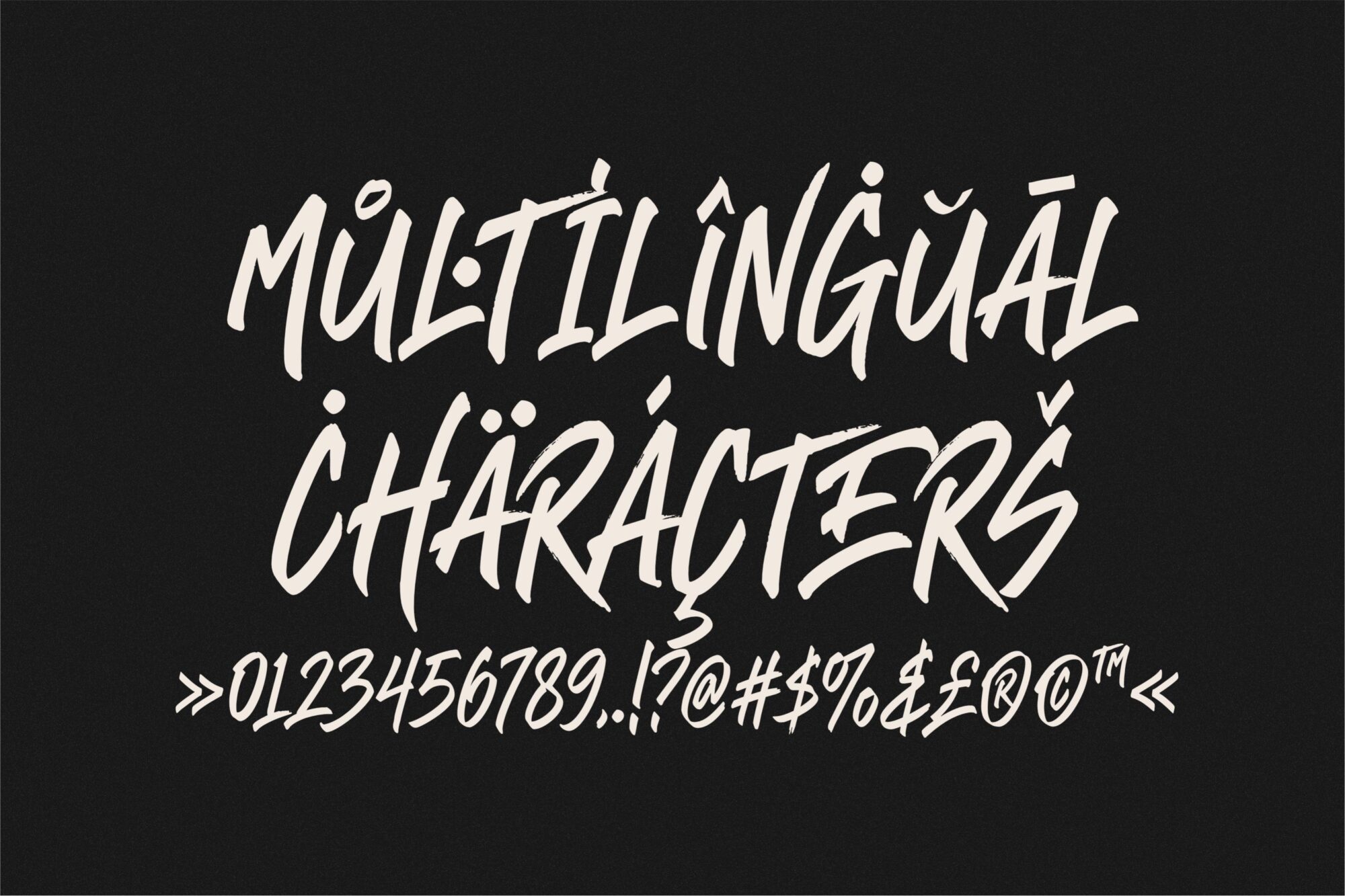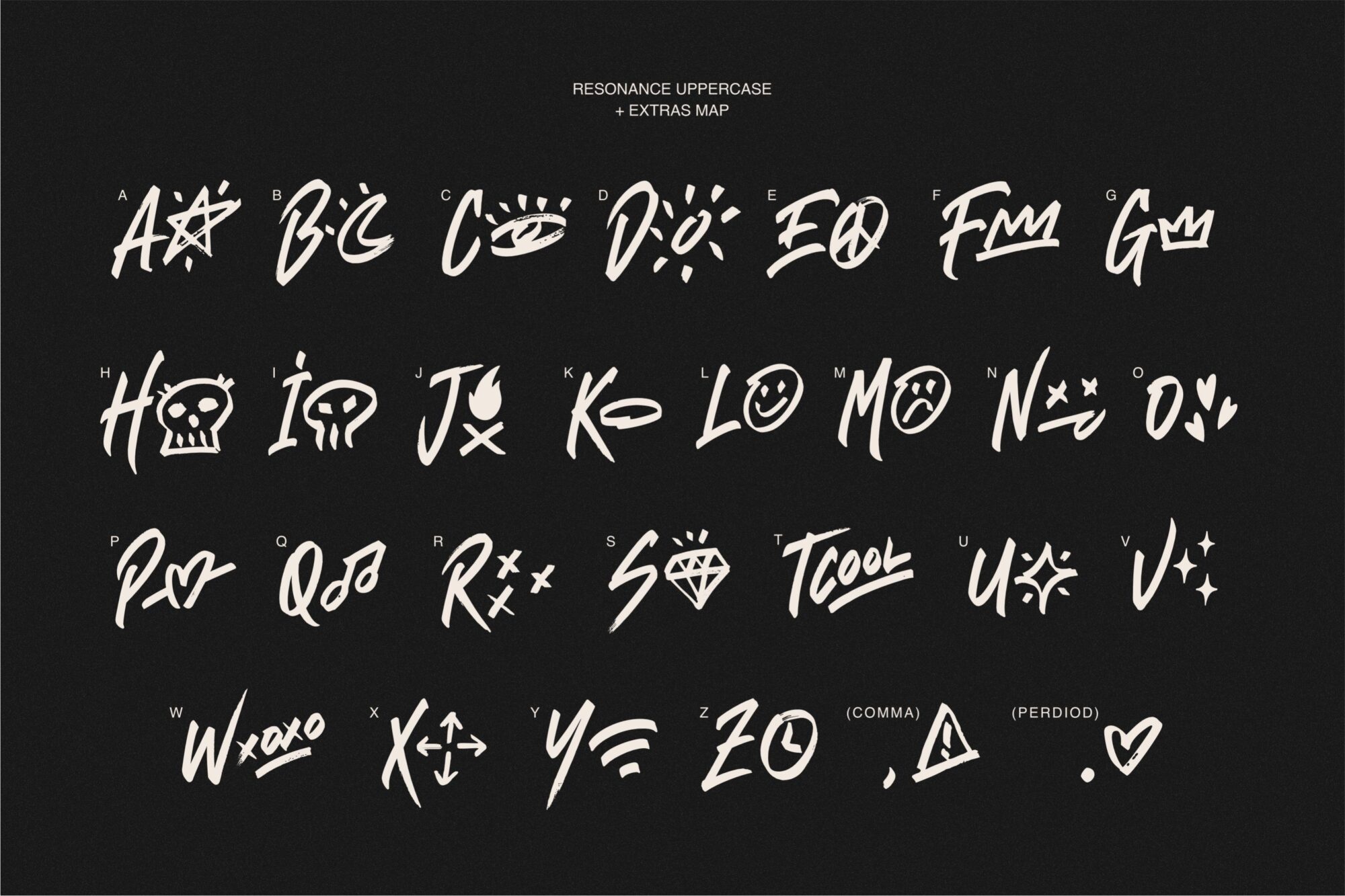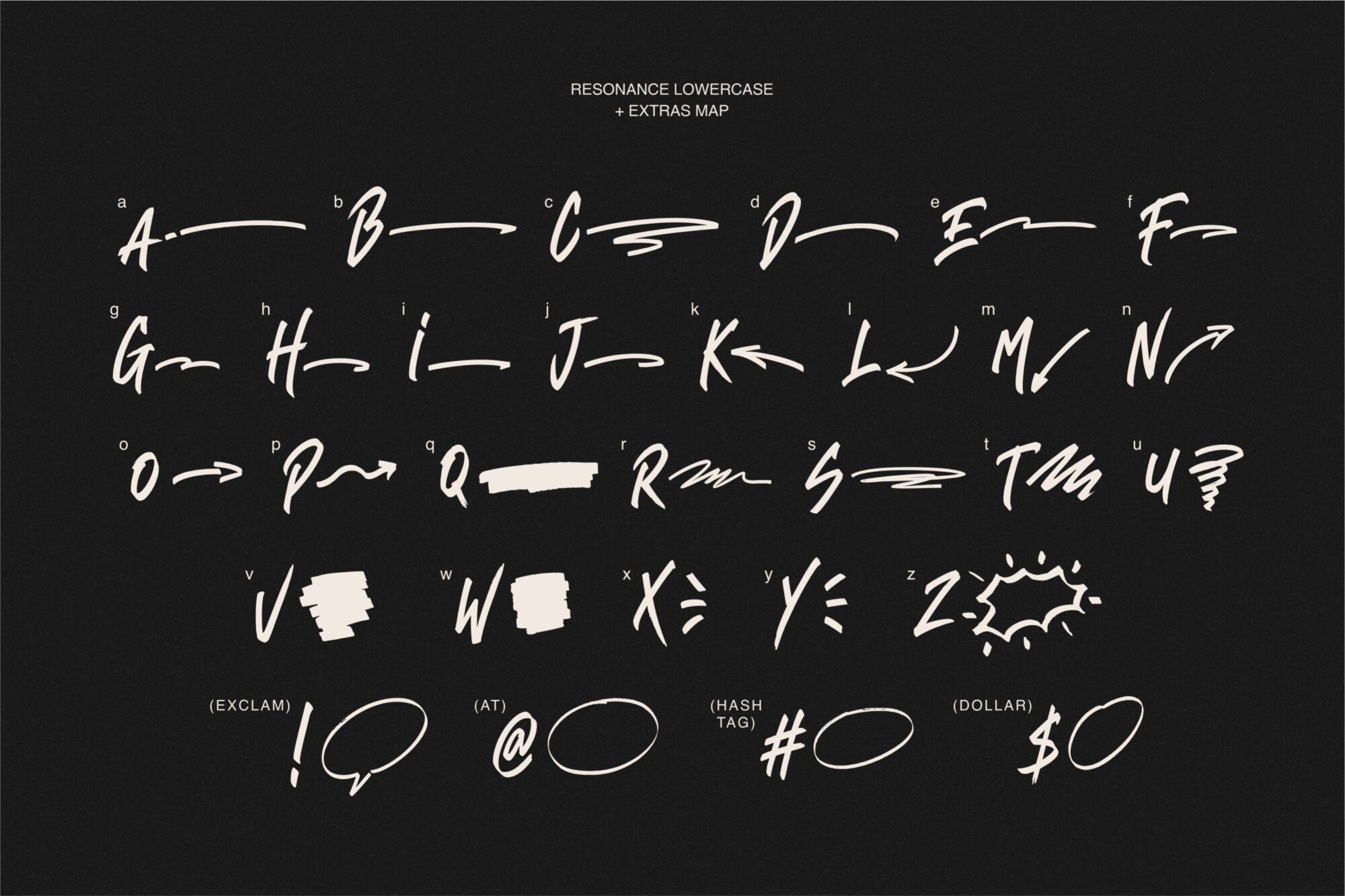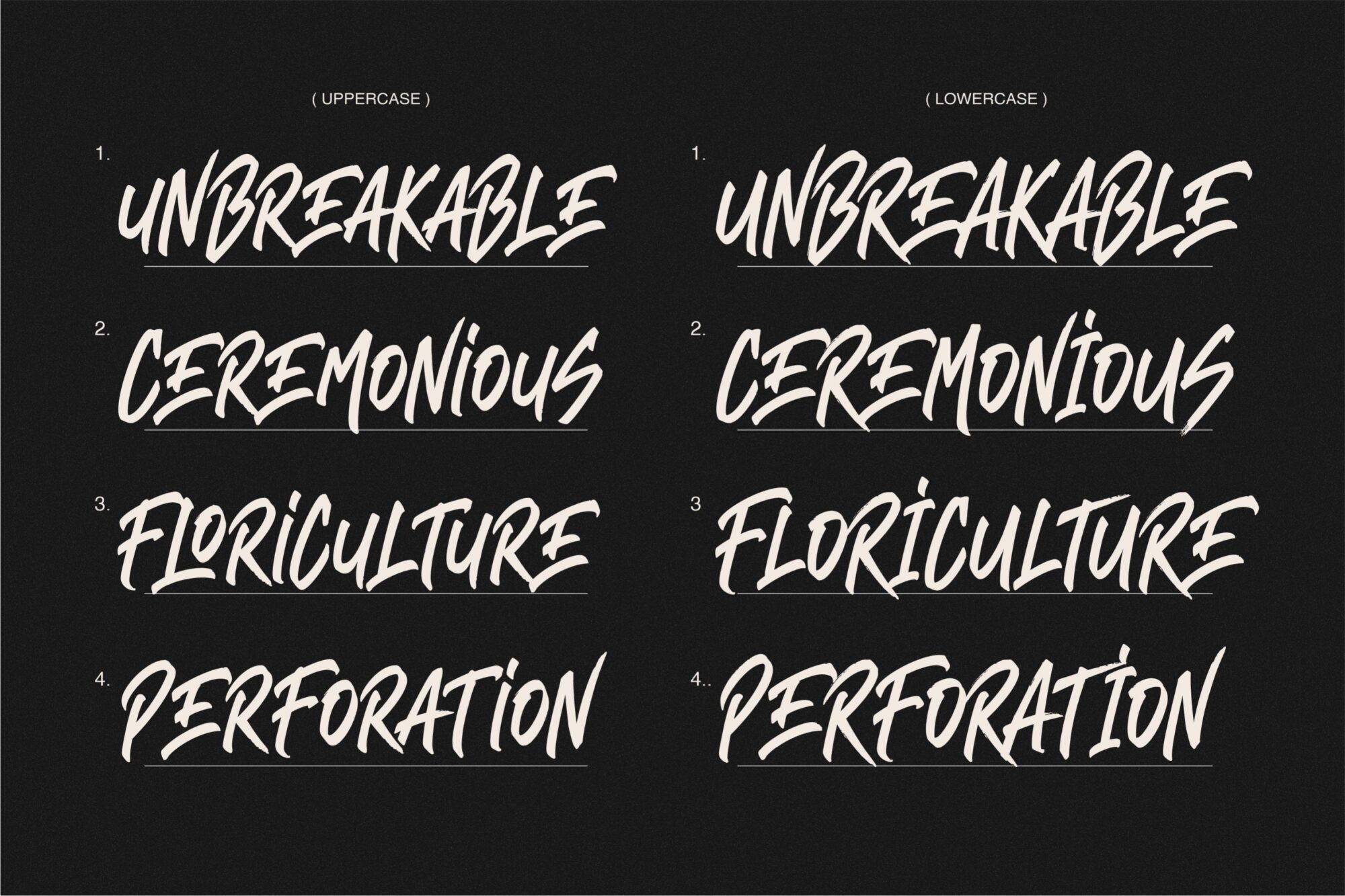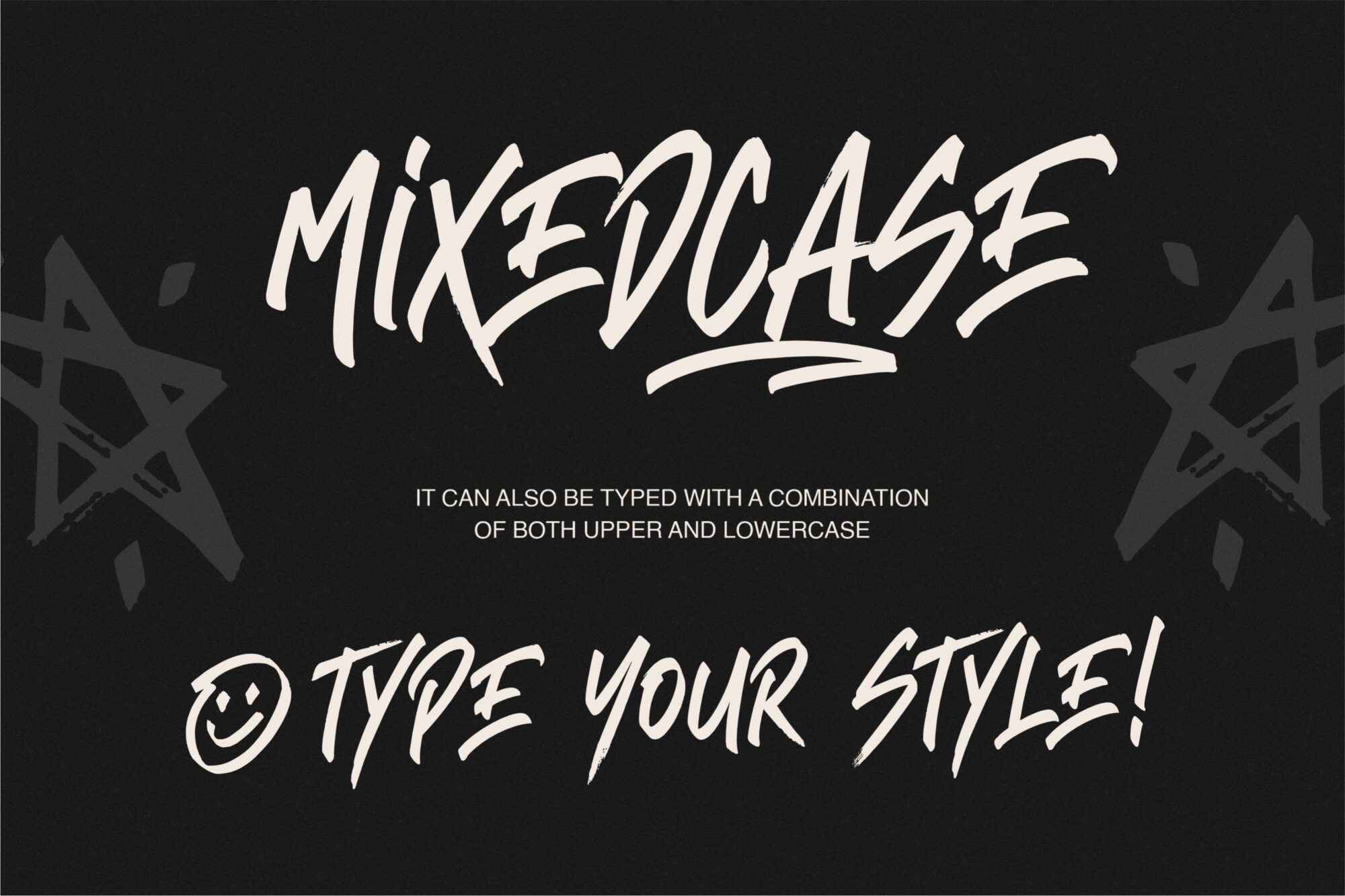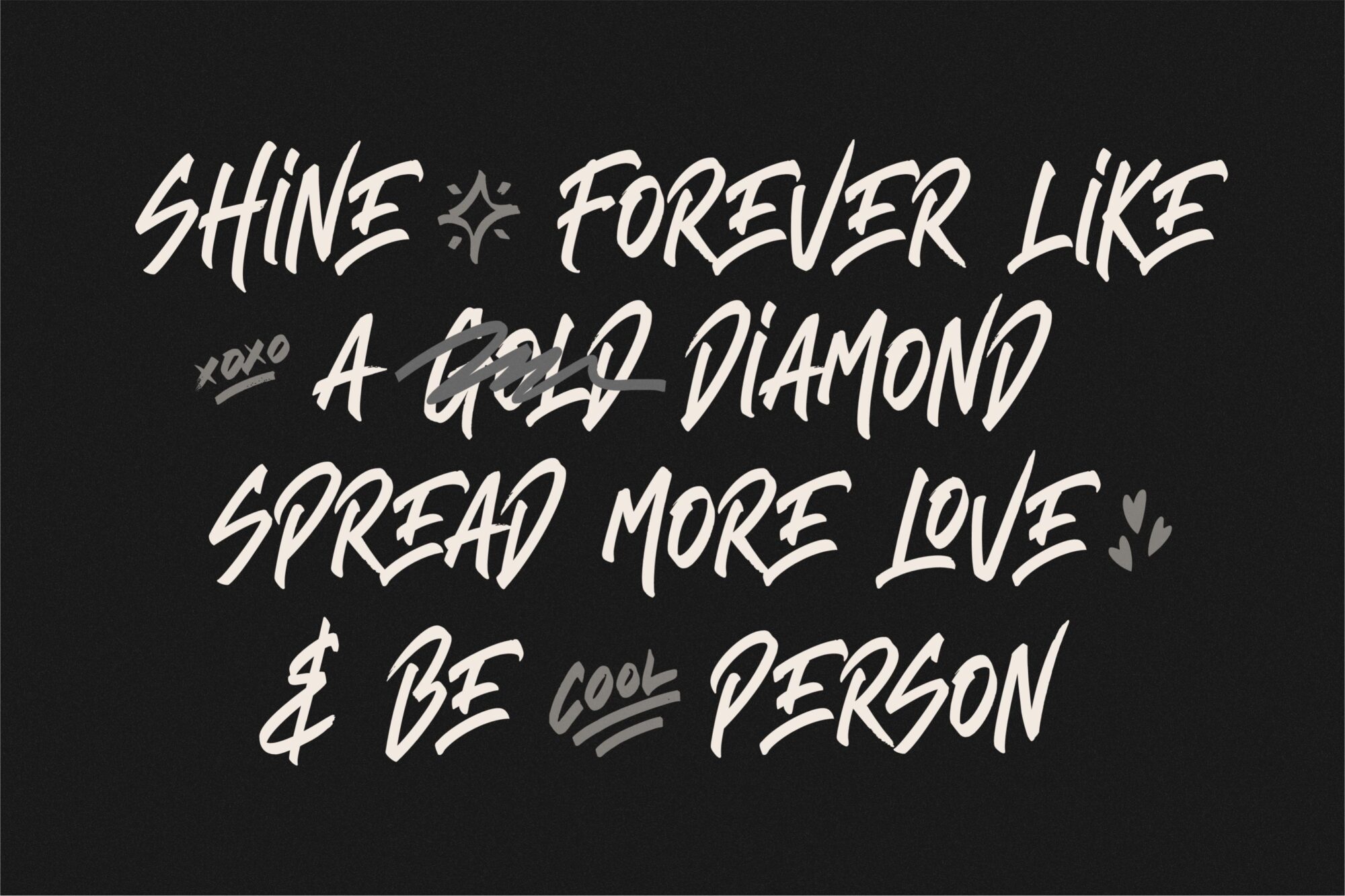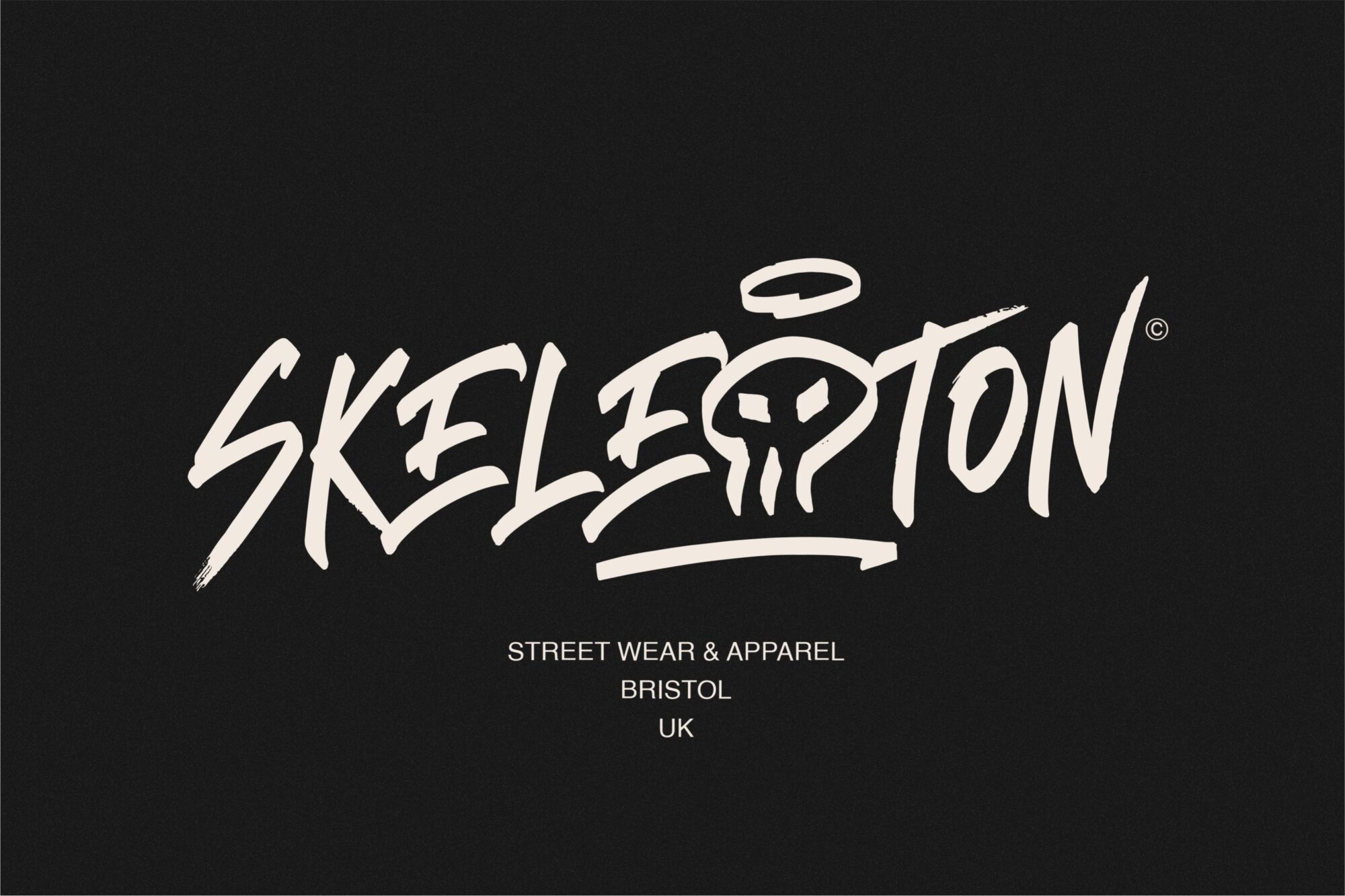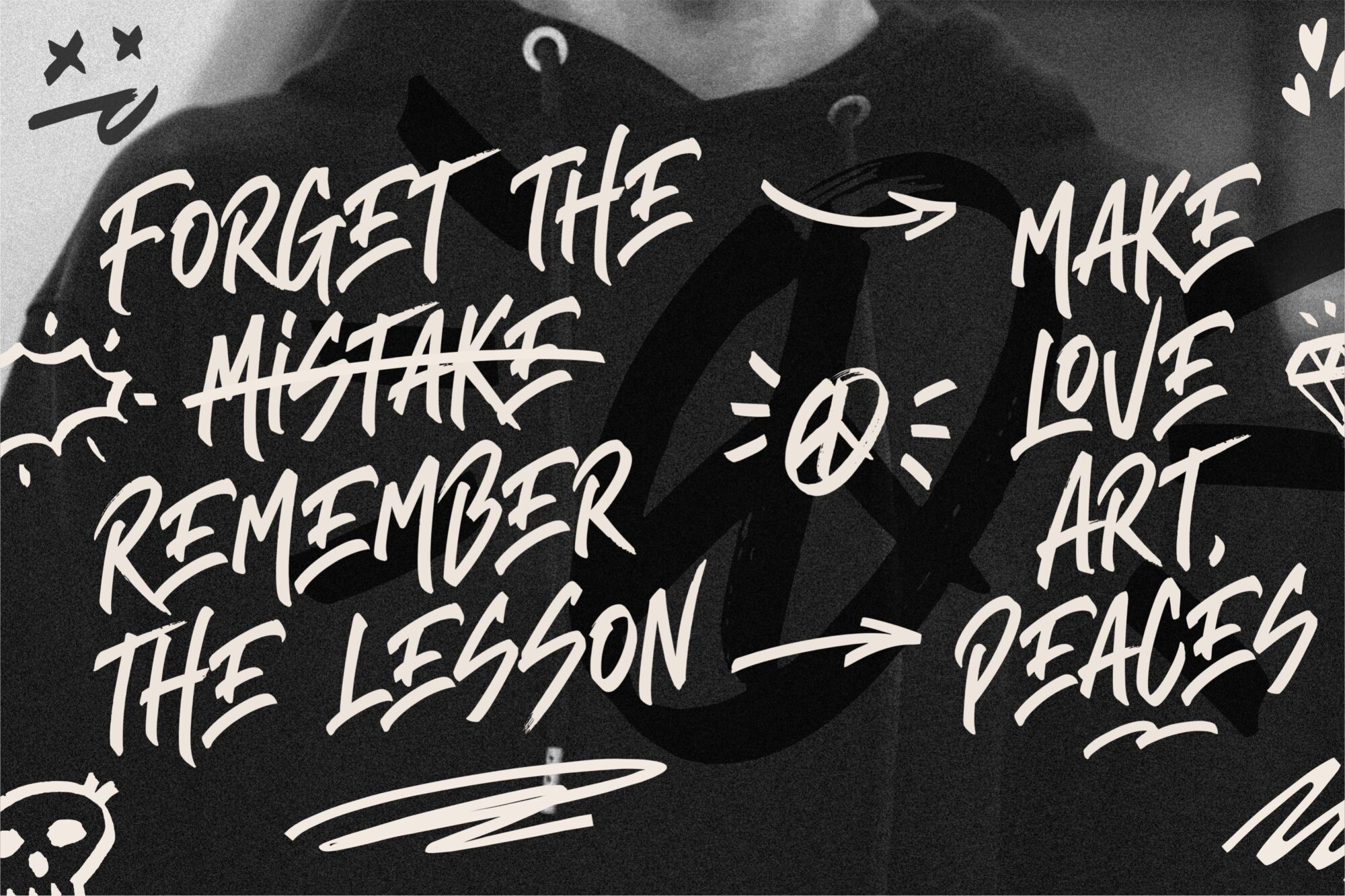
Resonance
Resonance Extras
a captivating font meticulously crafted with a brush pen, bringing forth the essence of natural strokes.
Embrace the organic flow of each character, evoking a sense of authenticity and artistic flair. It work to type with upper case, lowercase, or mix both of them. Can be use for crafting invitations, quotes, logos, or just simply text over image. this font promises to infuse your creations with a seamless blend of grace and originality. Unleash your creativity with Resonance!
– EXTRAS
– Numeral & Punctuation.
– Multilingual Support